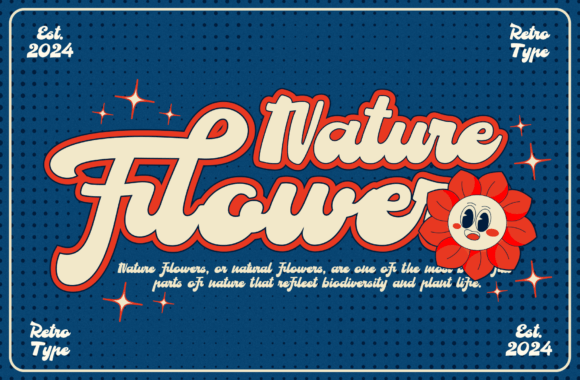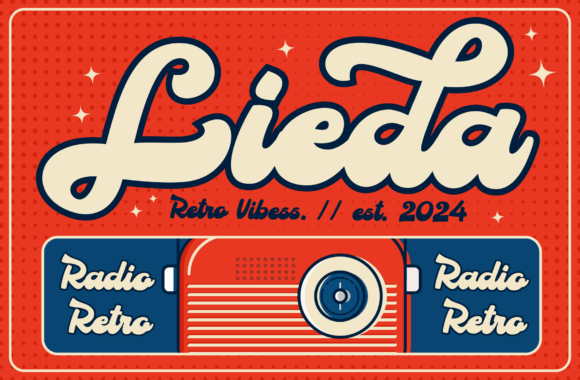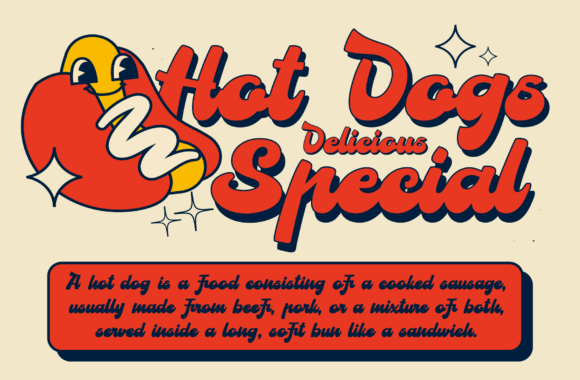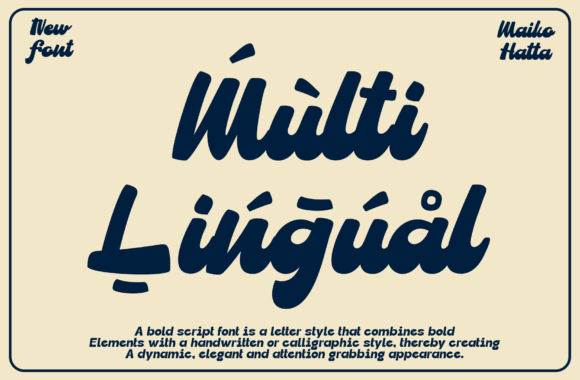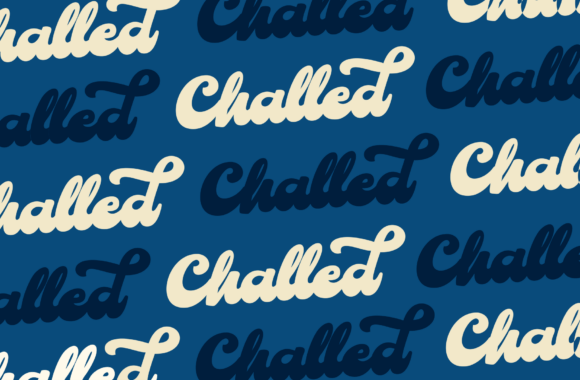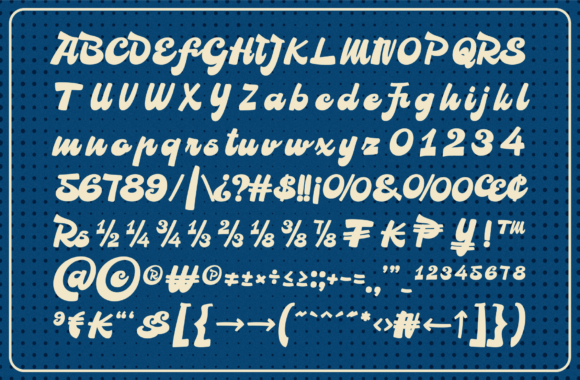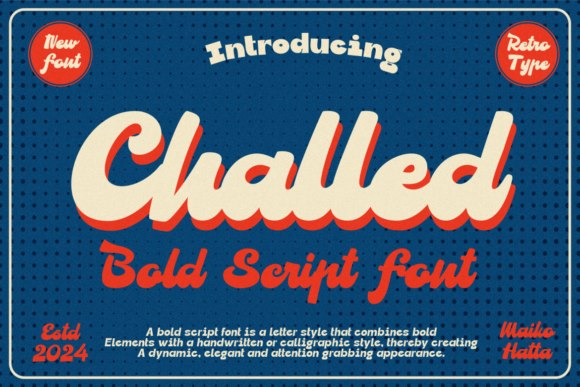
Introducing Challed Font: Elevate Your Designs with Bold Script Elegance
In the realm of graphic design and modern typography, the right font can make all the difference. It’s not just about conveying a message; it’s about doing so with style and impact. This is where the **Challed** font comes into play. Our new product, **Challed**, is a bold script font that offers unparalleled flexibility, making it an excellent choice for a wide range of design contexts. With its clean, professional, and contemporary look, **Challed** is set to revolutionize the way designers and crafters approach their projects.
The Essence of Challed Font
**Challed** is more than just a font; it’s a design statement. Its bold script style exudes confidence and elegance, making it perfect for designers who want to add a touch of sophistication to their work. The font’s design is characterized by its clean lines, professional appeal, and a contemporary feel that is hard to resist. Whether you’re working on a branding project, a website design, or crafting materials, **Challed** provides the perfect blend of simplicity and visual appeal.
One of the standout features of the **Challed** font is its versatility. Its bold script style can be used in a variety of design contexts, from corporate branding to creative projects. Here are some ways you can use **Challed** to elevate your designs:
- Branding and Logos: Create a lasting impression with **Challed**. Its bold and elegant style makes it perfect for logos, business cards, and other branding materials.
- Website Design: Enhance your website’s typography with **Challed**. Its clean and professional look ensures that your site not only looks great but also offers a superior user experience.
- Social Media Graphics: Stand out on social media with **Challed**. Use it for social media posts, banners, and other graphics to give your content a bold and contemporary look.
- Crafting and DIY Projects: **Challed** is not just for digital designers. Crafters can use it for project titles, signs, and any other creative endeavors that require a touch of elegance.
Why Choose Challed?
With so many fonts available, why choose **Challed**? Here are a few compelling reasons:
- Unique Style: **Challed** offers a unique bold script style that sets it apart from more traditional fonts.
- Easy to Read: Despite its bold style, **Challed** remains easy to read, making it perfect for both headings and body text.
- Highly Versatile: As mentioned, **Challed** can be used in a variety of contexts, making it a valuable addition to any designer’s toolkit.
- Professional and Contemporary: **Challed** strikes the perfect balance between professionalism and contemporary style, ensuring your designs are always on point.
In conclusion, **Challed** is a game-changer for designers and crafters alike. Its bold script style, combined with its versatility, clean look, and professional appeal, makes it an excellent choice for anyone looking to elevate their designs. Whether you’re working on a digital project or a crafting endeavor, **Challed** is sure to make your work stand out. So why wait? Explore the possibilities with **Challed** today and take your designs to the next level.
Get Ready to Transform Your Designs with Challed
Challed Font – Key Features:
- Bold Script Style
- Clean and Professional Look
- Contemporary Feel
- Highly Versatile
- Easy to Read
Embrace the future of design with **Challed**. Let this exceptional font be the cornerstone of your next project and witness the impact it can have on your audience. **Challed** is not just a font; it’s a design revolution waiting to happen.